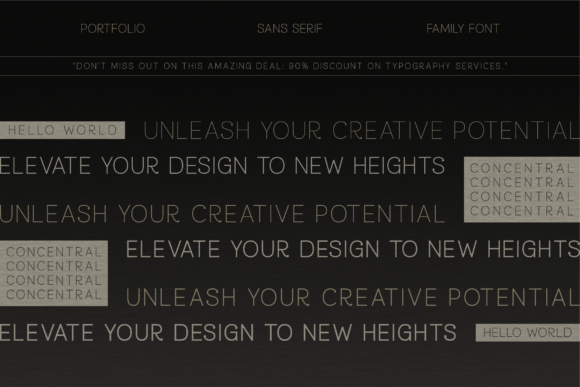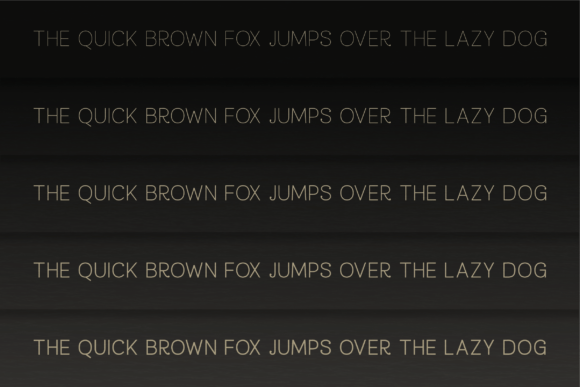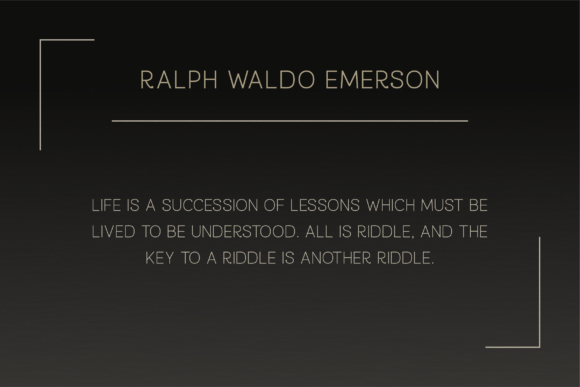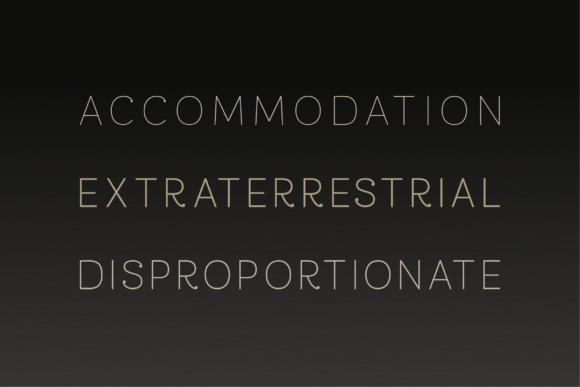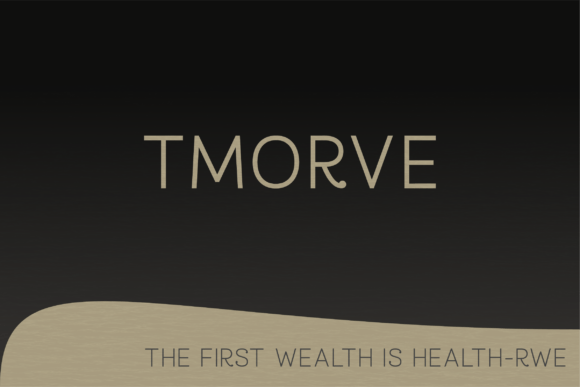
Introducing the Concentral Font: Elevate Your Designs with Elegance and Simplicity
In the realm of typography, a font can make or break the visual appeal of a design. For designers and crafters seeking a perfect blend of style and sophistication, the Concentral Font emerges as a game-changer. This sans serif font family strikes a sublime balance between understated beauty and minimalist aesthetics, making it an ideal choice for a wide range of projects.
The Essence of Concentral Font
Concentral Font is a meticulously crafted typeface, presented in five unique weights. This ensemble is designed to intertwine contemporary style with opulent elements, resulting in a versatile and elegant font family. Whether you’re working on a magazine, logo, or film poster, Concentral Font is poised to amplify the charm of your endeavor.
Key Features of Concentral Font
- Five Unique Weights: Concentral Font offers a range of weights, allowing designers to experiment with different styles and tones. From light and subtle to bold and striking, this font family adapts seamlessly to various design requirements.
- Sans Serif Elegance: The clean lines and minimalist aesthetic of Concentral Font make it an excellent choice for designs that demand a touch of sophistication. The sans serif style ensures that the font remains legible and stylish, even at smaller sizes.
- Contemporary Style: Concentral Font embodies the essence of modern typography, making it perfect for designs that require a fresh and current look. The font’s sleek appearance ensures that your designs stay ahead of the curve.
- Opulent Elements: What sets Concentral Font apart is its subtle incorporation of luxurious elements. This font family strikes a perfect balance between simplicity and elegance, making it suitable for high-end designs and branding projects.
Crafting Perfection: The Making of Concentral Font
The creation of Concentral Font is a testament to meticulous craftsmanship. Each weight has been painstakingly designed to ensure that the font family exudes a sense of refinement and poise. The attention to detail is evident in the font’s clean lines, precise curves, and elegant spacing.
Applications of Concentral Font
Concentral Font is an incredibly versatile typeface, suitable for a wide range of applications. Some of the most notable uses include:
- Magazines and Editorials: Concentral Font’s elegant appearance makes it an excellent choice for magazine layouts, article headings, and editorials.
- Logo Design: The font’s unique blend of simplicity and luxury makes it perfect for logos that require a touch of sophistication.
- Film Posters: Concentral Font’s bold weights and sleek appearance make it an excellent choice for film posters and movie titles.
- Branding and Identity: The font family’s luxurious elements and modern style make it suitable for branding projects that demand a high-end look.
Empowering Your Designs with Concentral Font
Concentral Font is more than just a typeface – it’s a design solution. By incorporating this font family into your projects, you’ll be able to:
- Elevate Your Designs: Concentral Font adds a touch of elegance and sophistication to any design, making it perfect for projects that demand a high-end look.
- Radiate Enduring Allure: The font’s timeless design ensures that your projects remain stylish and relevant, even years after their initial release.
- Transcend the Ordinary: With Concentral Font, you’ll be able to create designs that stand out from the crowd, exuding a sense of luxury and refinement.
Harness the Potential of Concentral Font Today